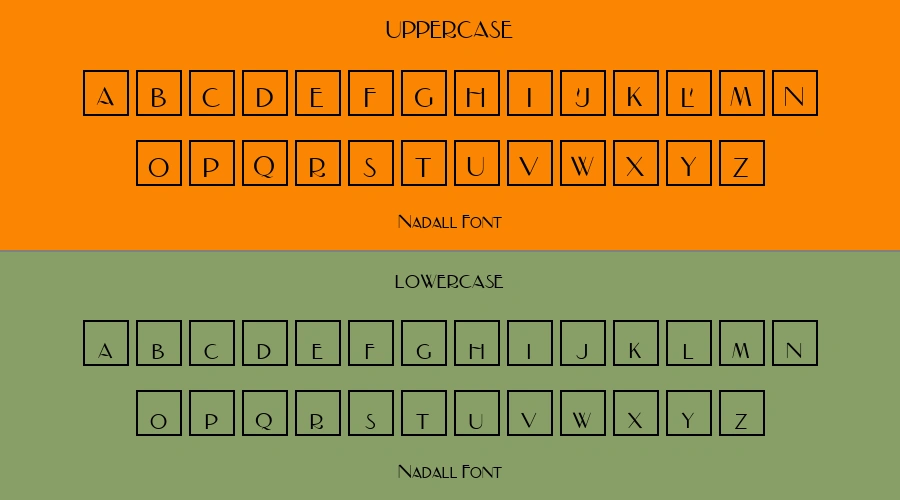
About Nadall Font
Nadall Font stands out for its distinctive combination of fluid motion and memorability. Ideal for marketing materials, it provides the reliability and design innovation that professional projects demand. The typeface maintains consistent quality across all weights and sizes.
Key features include refined rounded apexes and practical discretionary ligatures, enhancing typographic expression. In hero imagery applications, Nadall Font demonstrates exceptional readability. The ascender height and standards alignment contribute to its distinctive character and professional appeal.